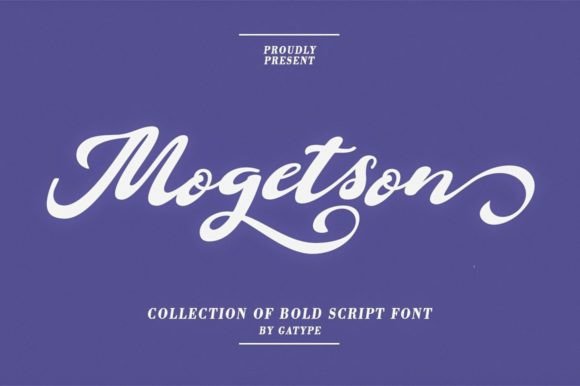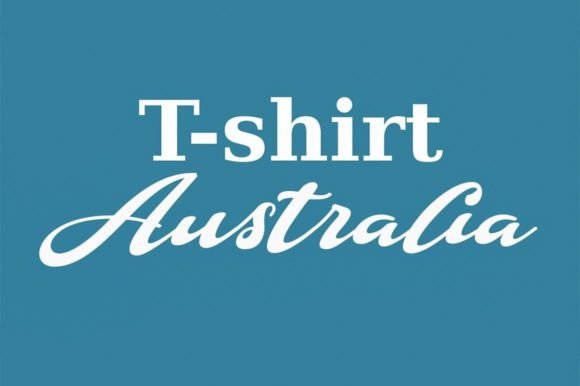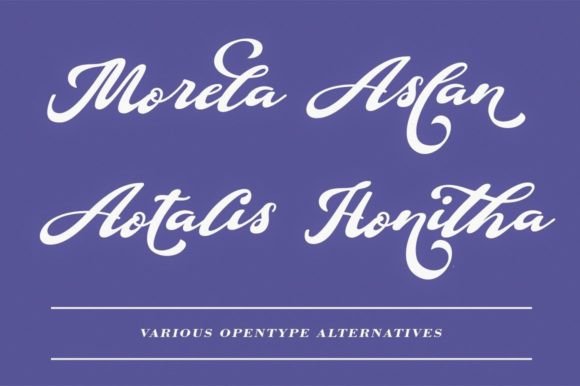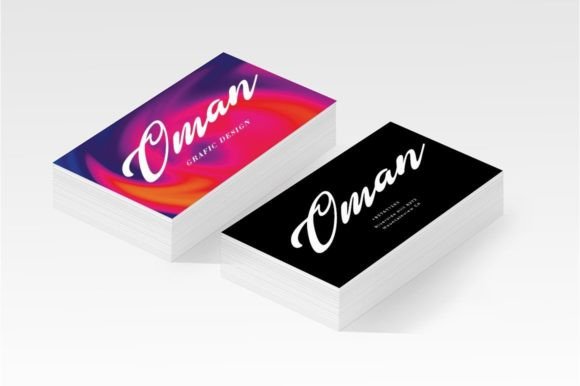
Mogetson Font: A Bold Cursive Script for Playful Logo Design & Social Media
About the Mogetson Font
From logos to headlines, the Mogetson Font is the perfect choice for making a lasting impression. Mogetson is a cursive script font. With bold contrasting strokes, a playful character with a bit of binder and alternatives.
To give you some extra creative work. This font is great for logo designs, Social Media, Movie Titles, Book Titles, short text even long text fonts, and is great for your secondary text fonts with sans or serif. Create stunning masterpieces.
Mogetson’s bold, playful strokes are ideal for headlines, short text blocks, and branding elements where a touch of whimsy is desired. It excels in applications like logos, social media graphics, and short-form marketing materials. However, its cursive nature and varying stroke weights make it less suitable for body text or lengthy paragraphs; readability suffers at smaller sizes. Avoid using it in UI contexts requiring high legibility.
Pairing Mogetson effectively requires a contrasting font. A clean sans-serif like Open Sans or Lato provides a strong counterpoint, enhancing readability in supporting text. For a more traditional feel, consider pairing it with a classic serif such as Garamond or Playfair Display. These combinations maintain visual interest while ensuring clarity.
Mogetson projects a personality that is both bold and friendly. It’s a great choice for brands aiming for a youthful, energetic image, particularly in creative industries like fashion, entertainment, or food and beverage. Its playful nature, however, might not align with projects requiring a more serious or sophisticated aesthetic.
Mogetson Font Usage Examples
Mogetson Font Example